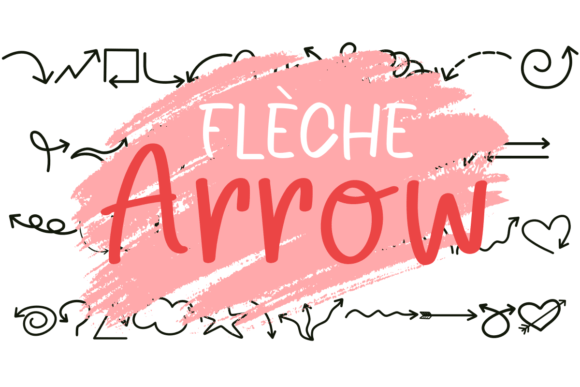
When Creativity Strikes: Discovering the Flèche Arrow Font
Have you ever found yourself browsing through a design store, searching for the perfect font to give your project that extra oomph? I know I have. Sometimes, all it takes is one glance at a quirky dingbats font to spark a wave of inspiration. For me, that font was the Flèche Arrow Font – a delightful collection of charming arrows that added a touch of whimsy to my design.
The Flèche Arrow Font is more than just a cute collection of arrows; it’s a versatile tool for designers looking to add a playful twist to their projects. Whether you’re creating eye-catching graphics or adding decorative arrows to your text, this font is sure to bring a smile to your audience. Its adorable design makes it perfect for designers seeking to inject a bit of fun and personality into their work.
Flèche Arrow Font Key Features
- Unique Characteristics: Flèche Arrow Font features a unique blend of modern and vintage elements, with a distinctive arrow motif that adds a touch of sophistication and playfulness to designs.
- Font Style: The font comes in two styles: Regular and Bold, providing flexibility for designers to choose the right weight for their project.
Designer Review: Flèche Arrow Font
Flèche Arrow Font is a unique and creative font that can add a touch of whimsy to any project. ✨ One of its standout features is the variety of arrow styles available, making it a great choice for designers looking to add a directional element to their designs. The font is also highly customizable, with options for adjusting the size, color, and spacing of the arrows.
Another benefit of Flèche Arrow Font is its versatility. ✨ It can be used in a wide range of contexts, from navigation and wayfinding to branding and advertising. The font is also highly legible, making it a great choice for use in digital interfaces and print materials.
While Flèche Arrow Font is a great choice for many projects, there are some limitations to be aware of. ⚠️ One of the main drawbacks is the font’s limited character set. It’s primarily designed for use as an icon or graphic element, rather than as a full-fledged text font. This means that it may not be suitable for use in long blocks of text.
- Limited character set
- Not suitable for use in long blocks of text
Overall, I think Flèche Arrow Font is a great choice for designers looking to add a creative and directional element to their projects. While it has some limitations, its versatility and customizability make it a valuable addition to any design toolkit. With a little creativity and planning, it’s easy to see how this font can be used to create engaging and effective designs.
Flèche Arrow Font Practical Application Guide
Getting the Most Out of Flèche Arrow Font
Flèche Arrow Font is ideal for creating modern and sleek designs. Here are some tips for getting the most out of it:
- Use it in combination with bold and italic fonts to add visual interest.
- Use it in headings and titles to create a consistent brand identity.
Flèche Arrow Font is commonly used in:
- Graphic design and branding.
- Infographics and data visualization.
- Use the Flèche Arrow Font for headings and subheadings to create a sense of excitement and adventure.
- Combine the font with bold, bright colors and high-quality images to showcase destinations.
- Use the arrow icon to point to specific locations or activities on a map.
Project 2: Navigation Website Design
The Flèche Arrow Font is perfect for creating a navigation system that guides users through a website. Use it to highlight main menu items, create a sense of direction, or emphasize important information.
Project 3: Infographic Design
The Flèche Arrow Font can be used to create a sense of movement and progression in infographic design. Use it to highlight key statistics, create a sense of direction, or emphasize important information.